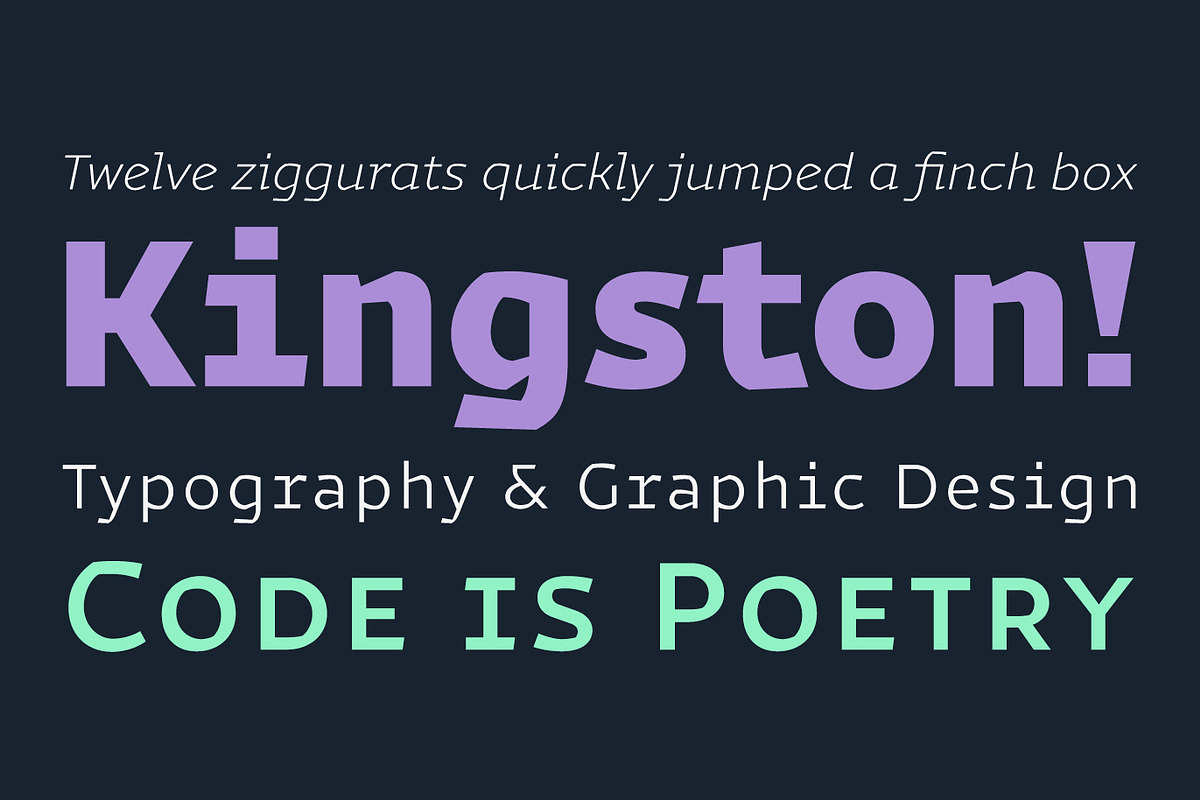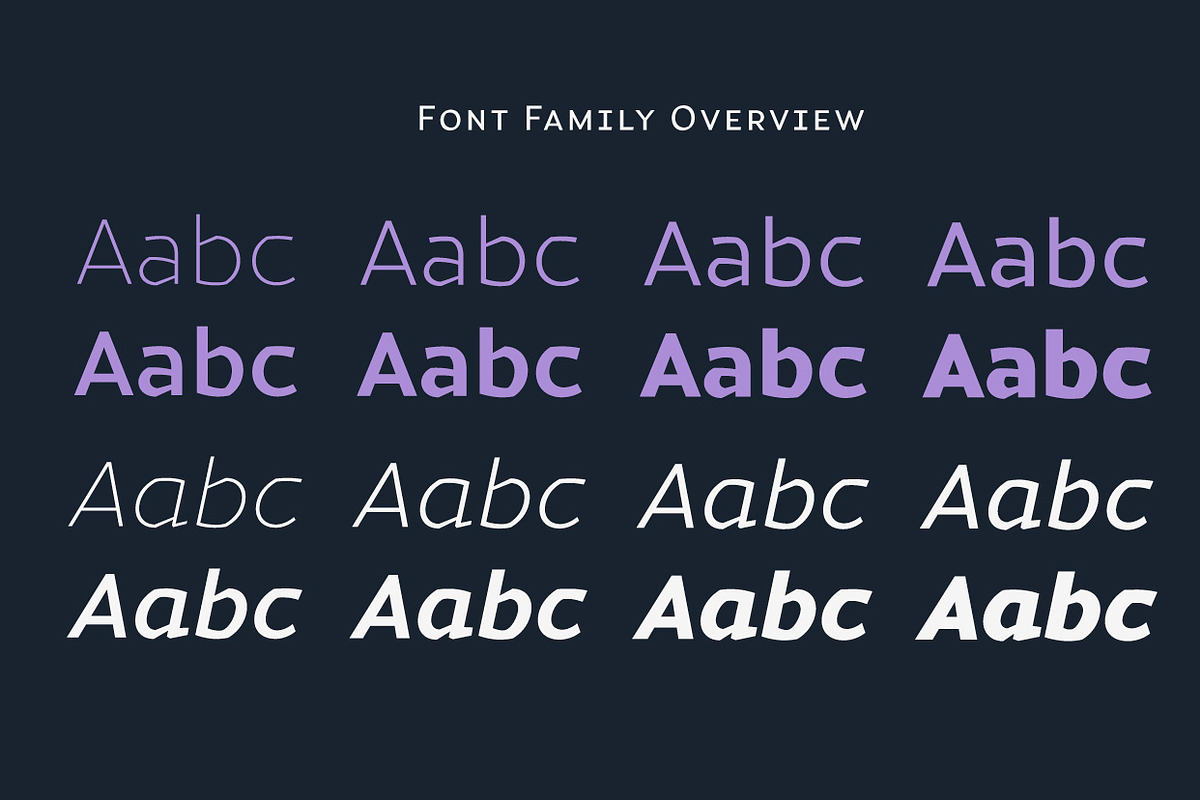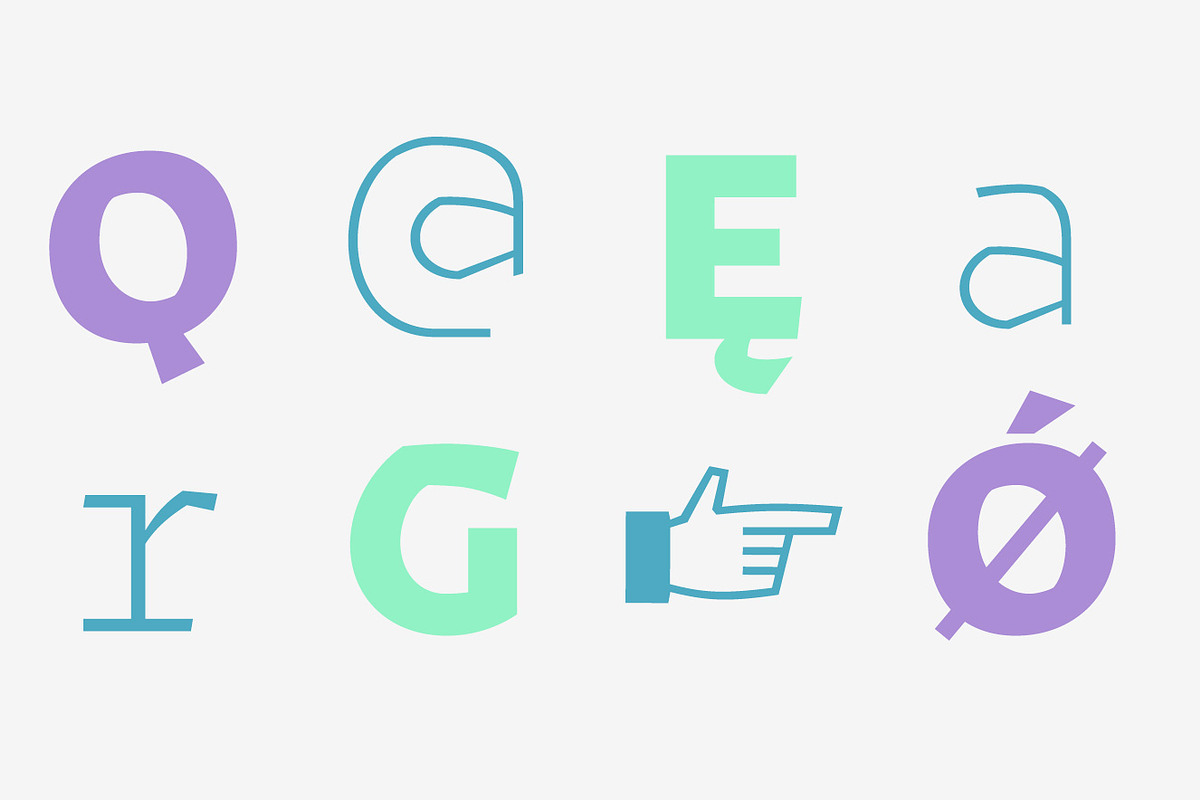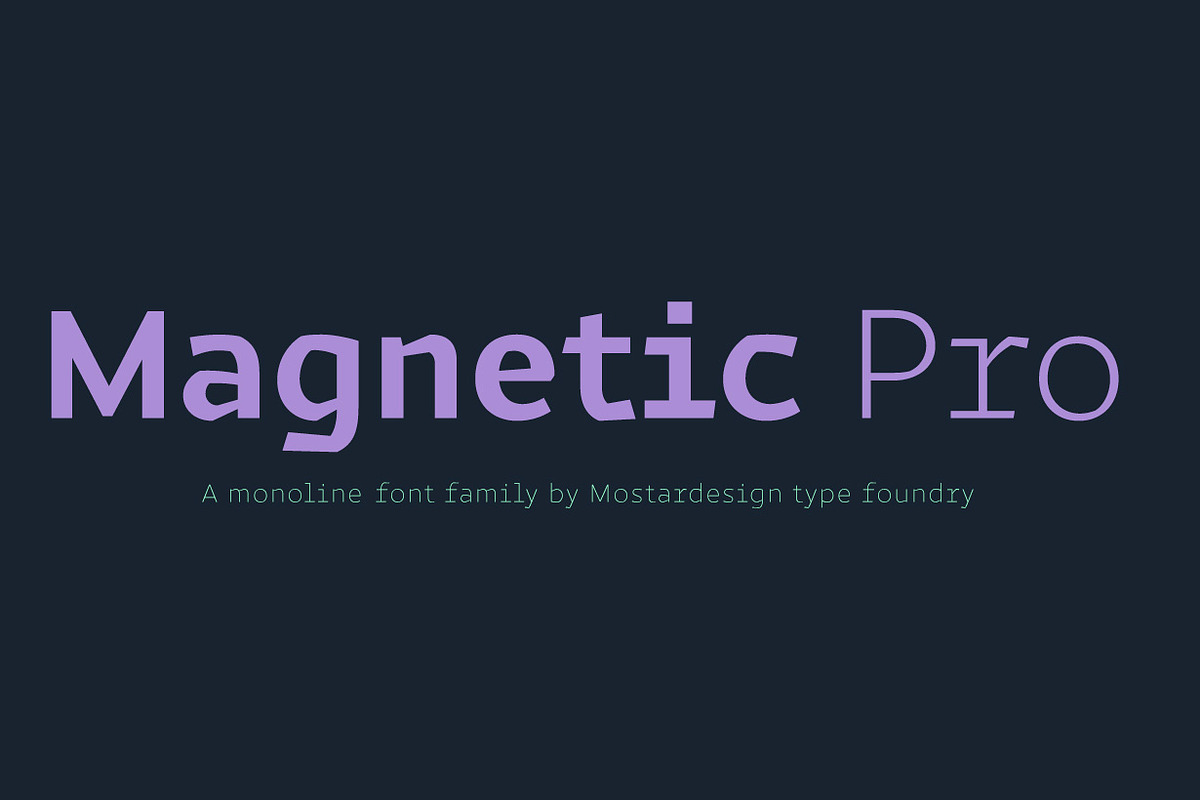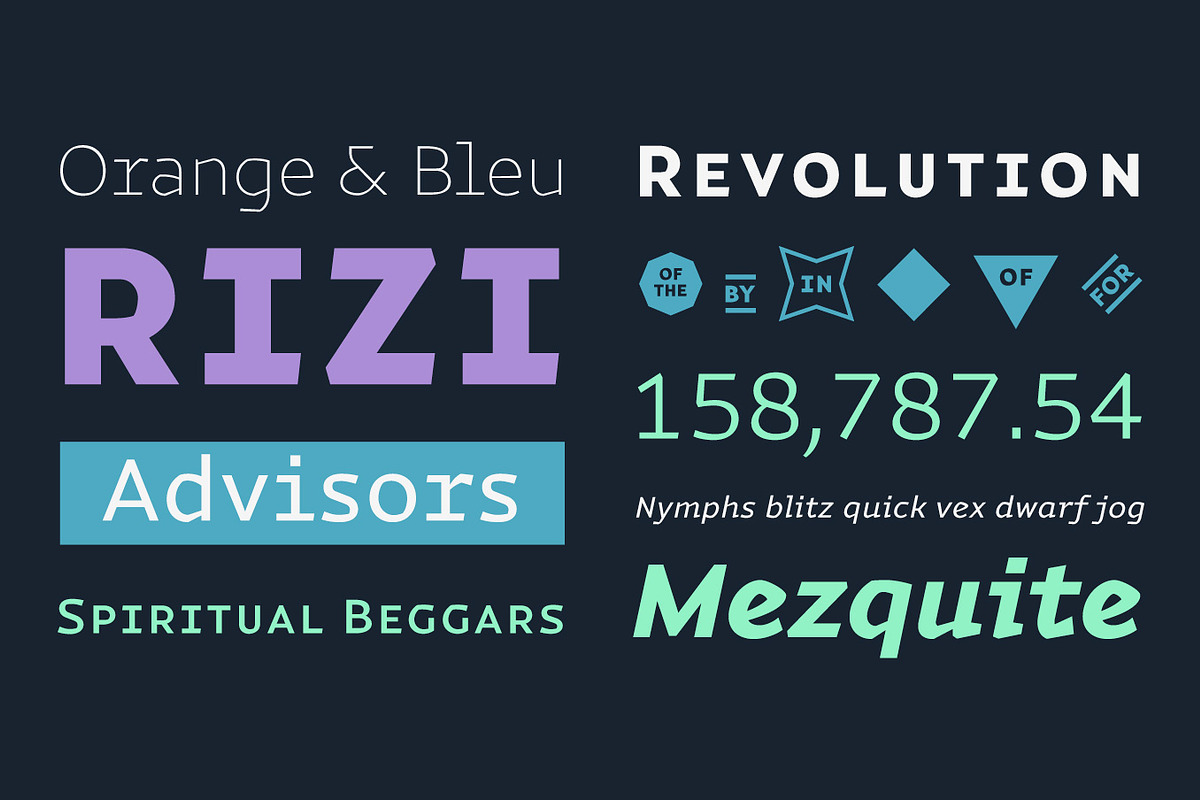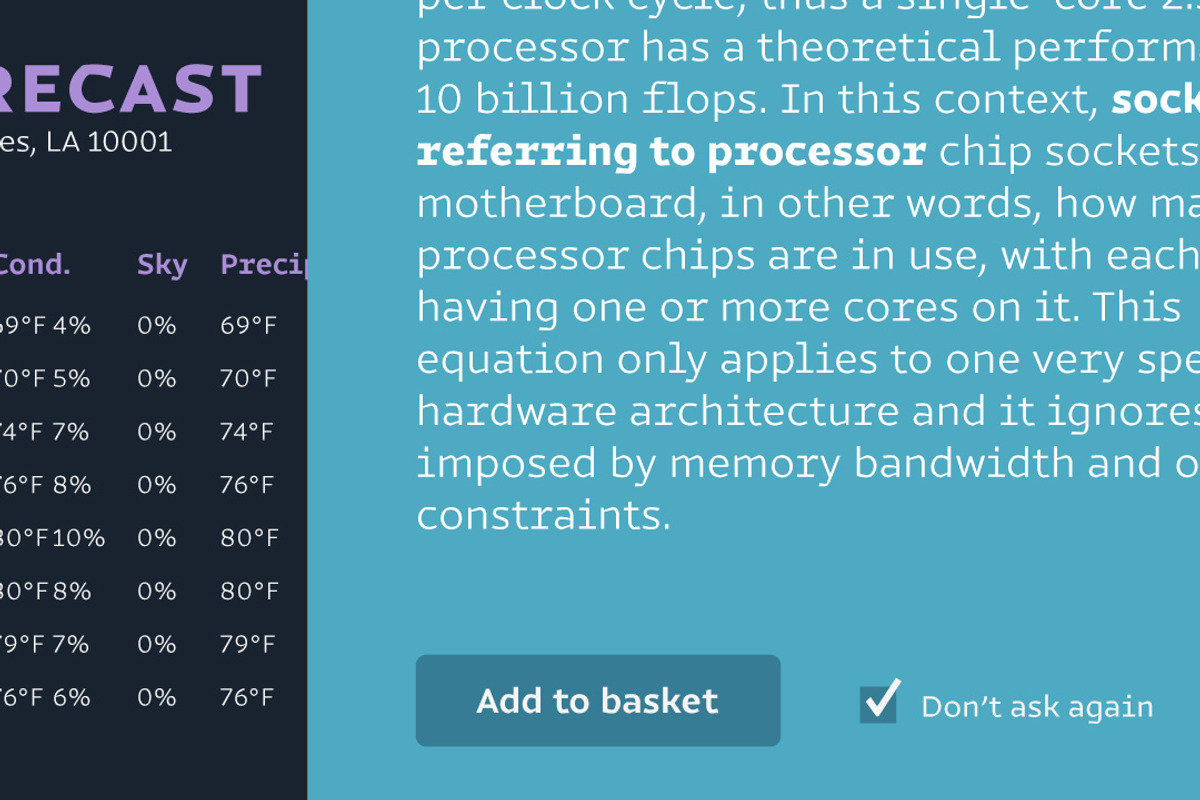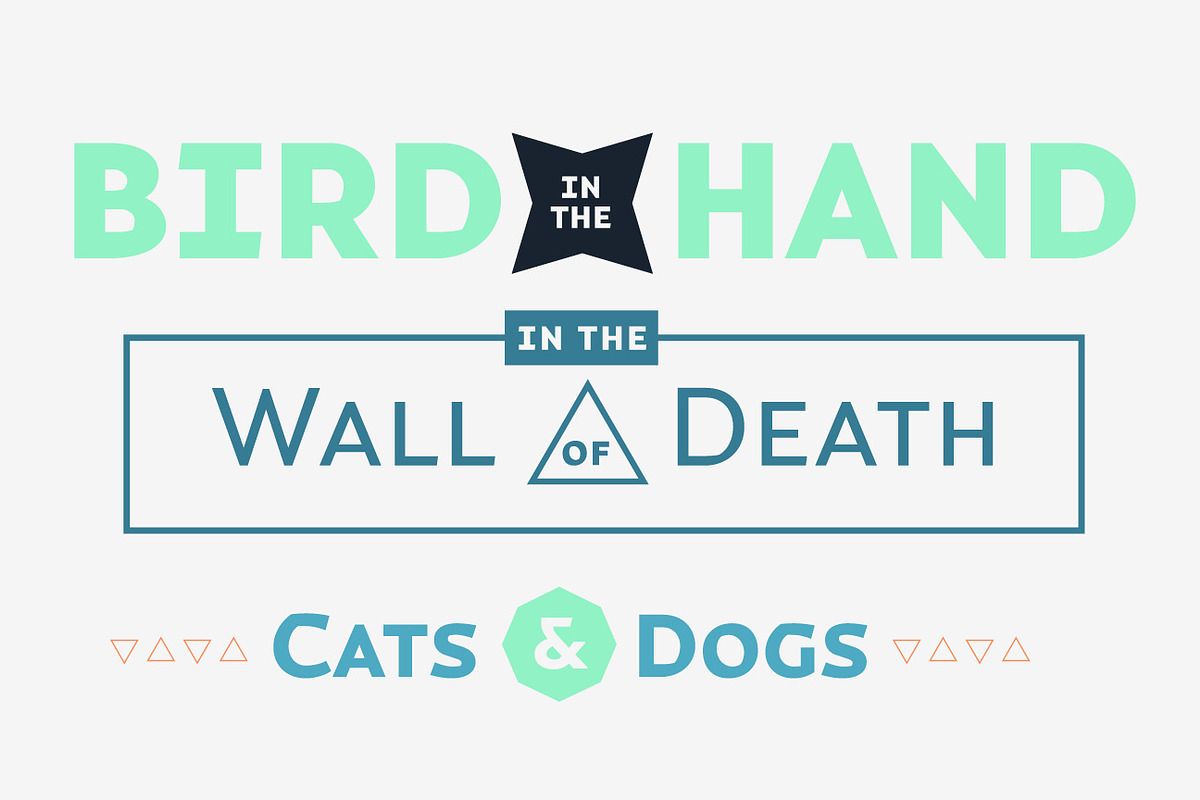
Magnetic Pro font family
Magnetic Pro font family by Mostardesign Type Foundry is a font selected for branding, posters, packaging, typography.
- Description Magnetic Pro is a typeface inspired by typewriter characters with a mechanical aspect.
- Equipped for professional typography, this font family has many OpenType features such as small caps, case sensitive forms, tabular and olds
Magnetic Pro font family by Mostardesign Type Foundry fits naturally into Branding, posters, packaging, typography.